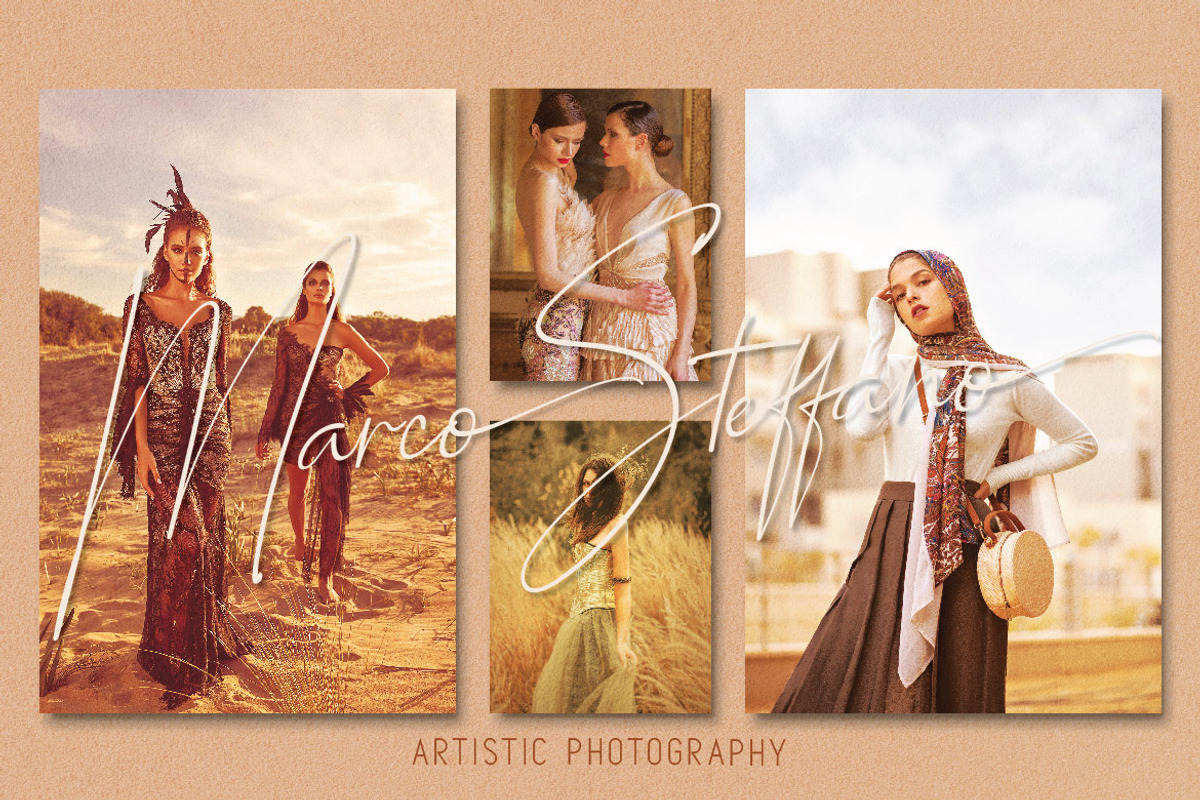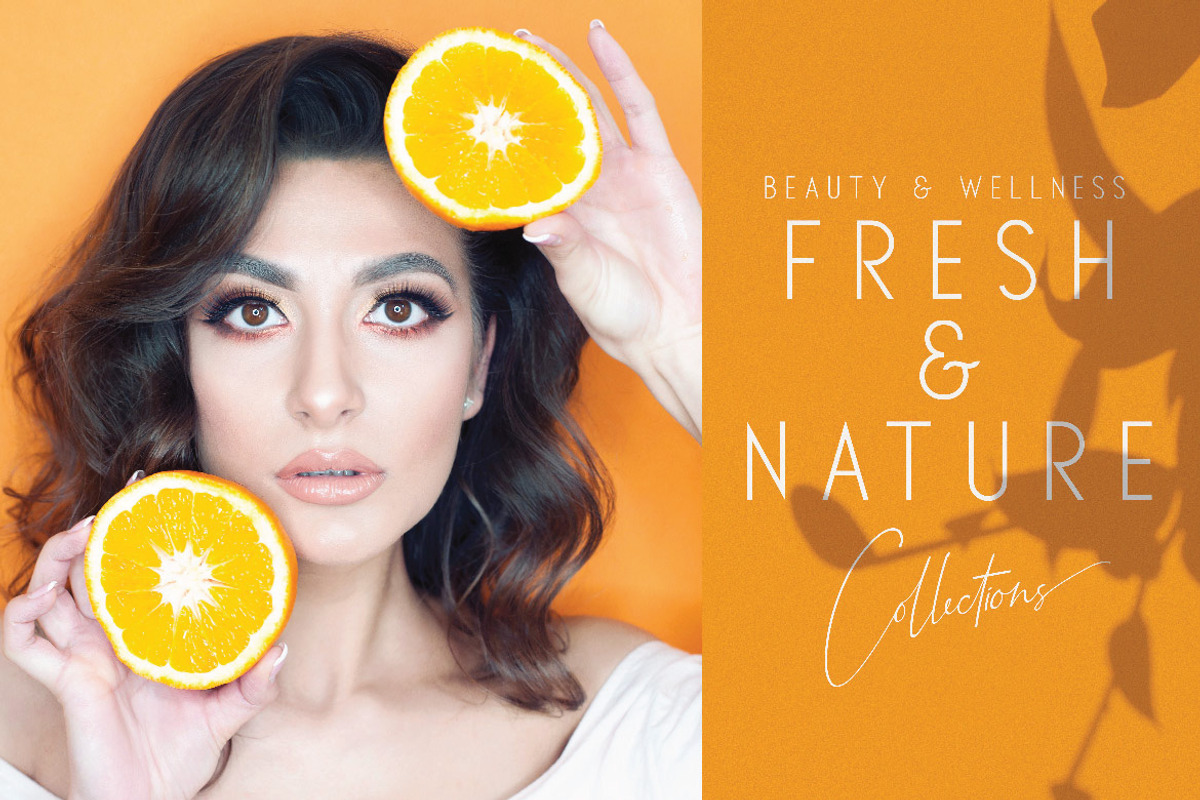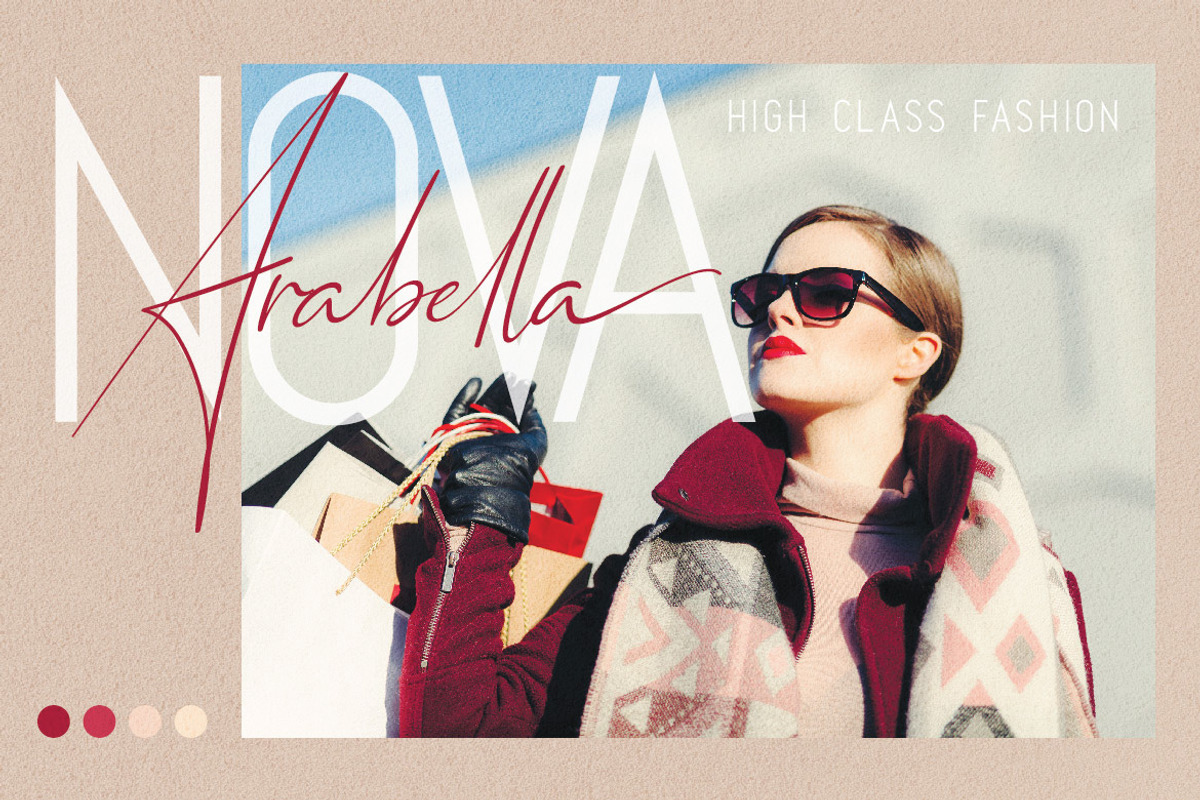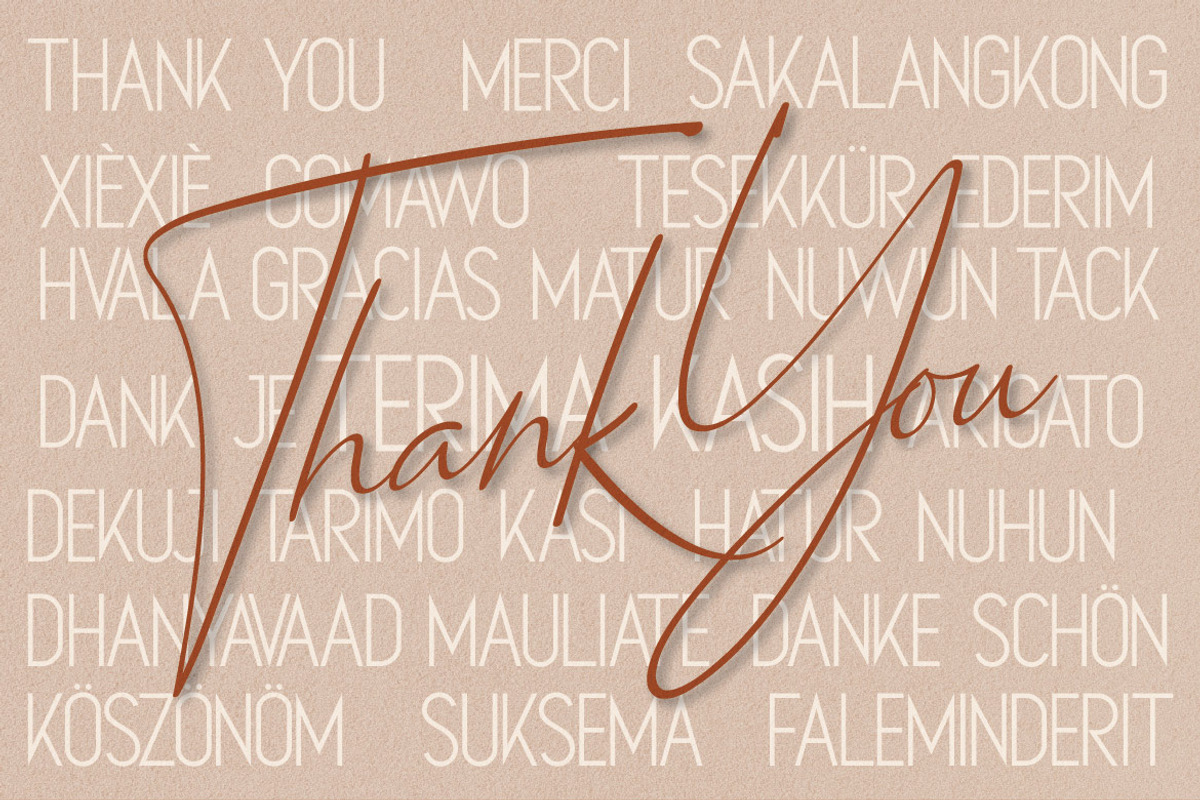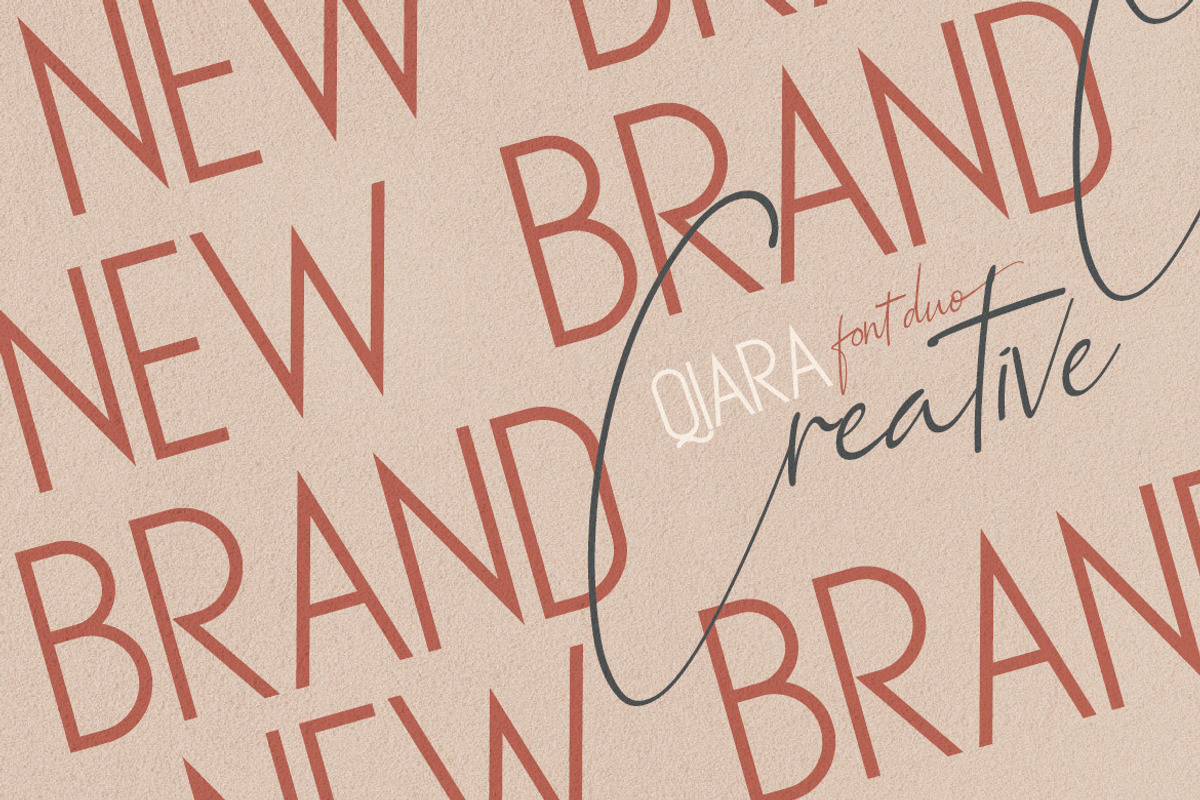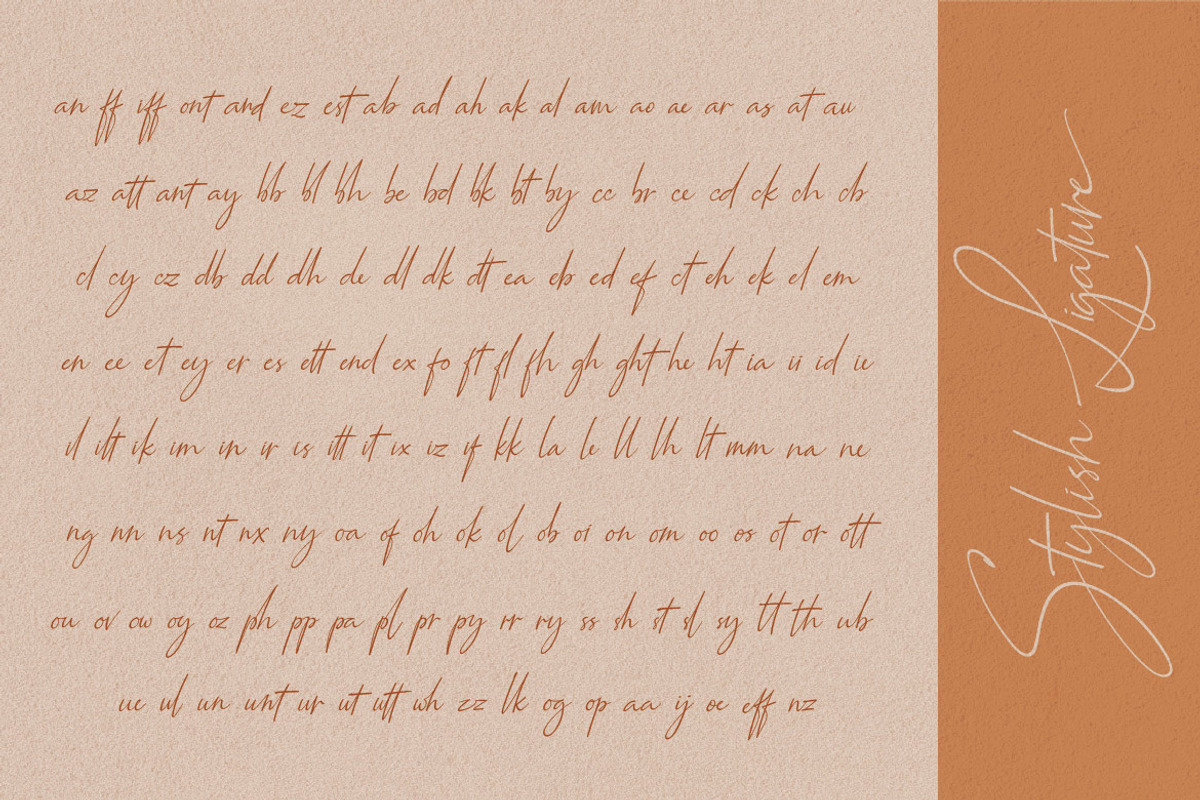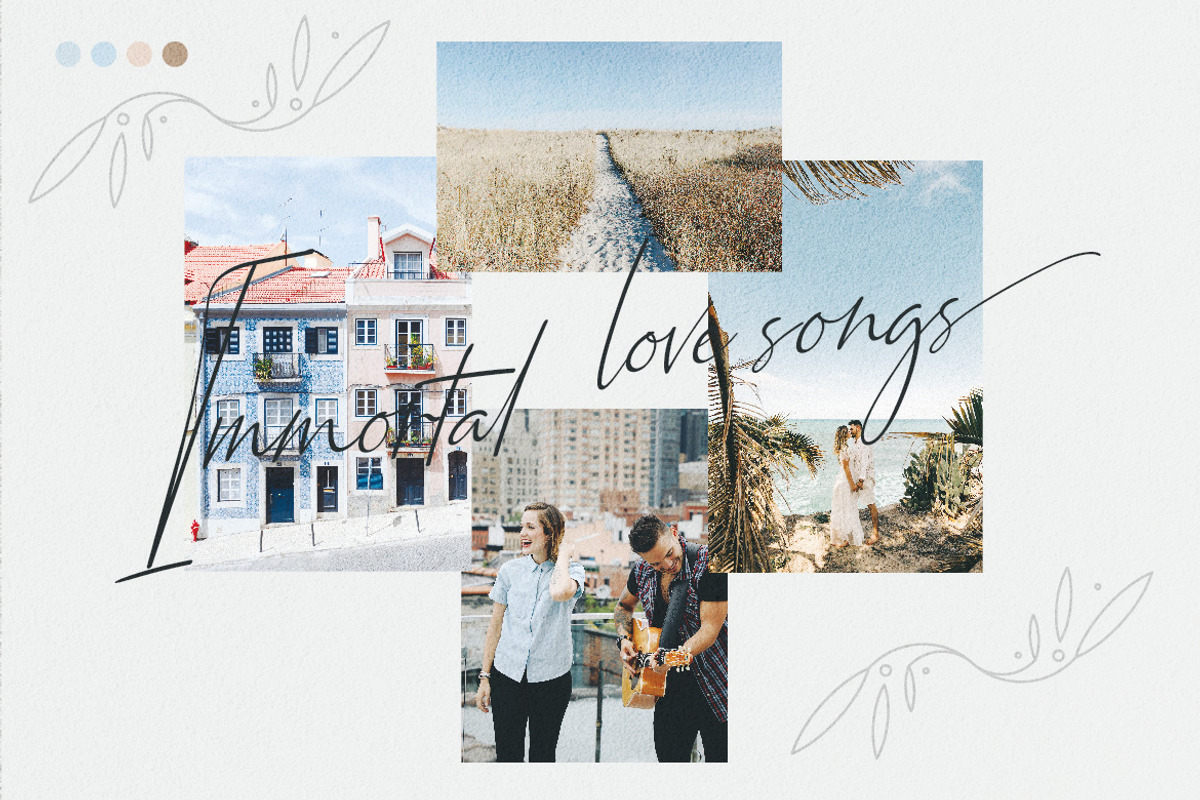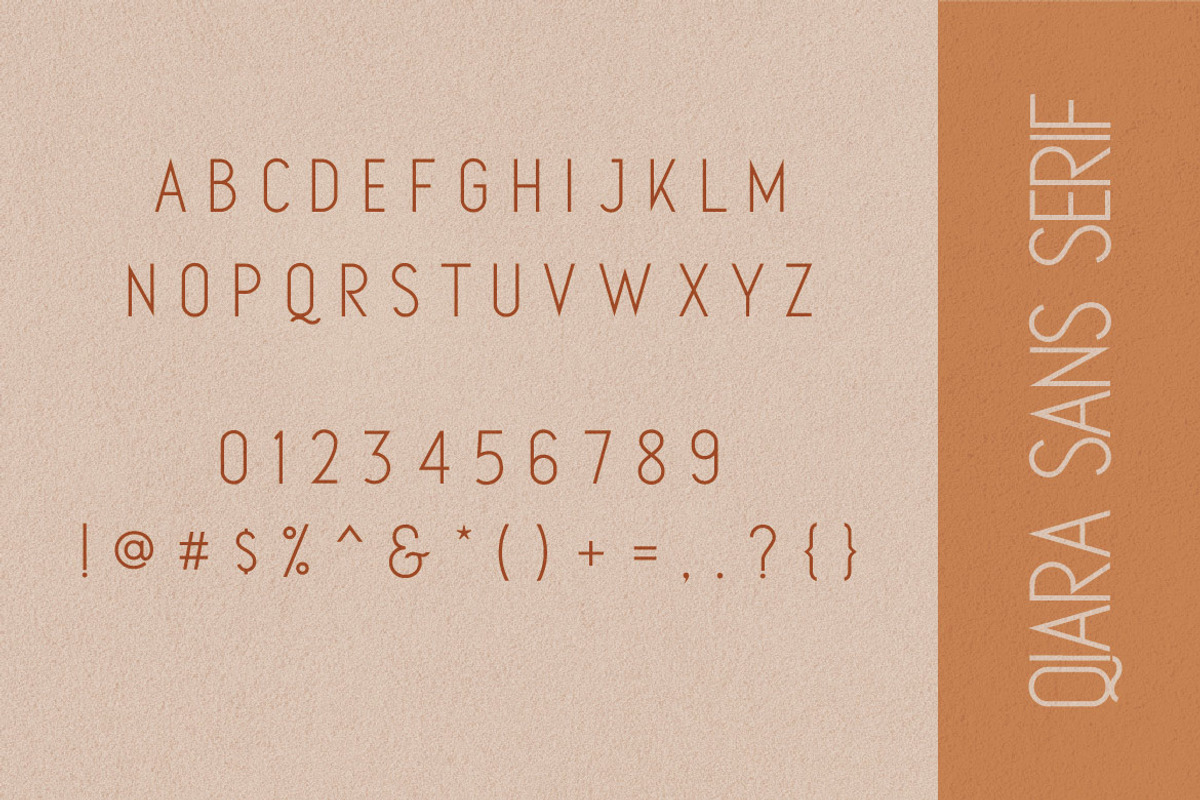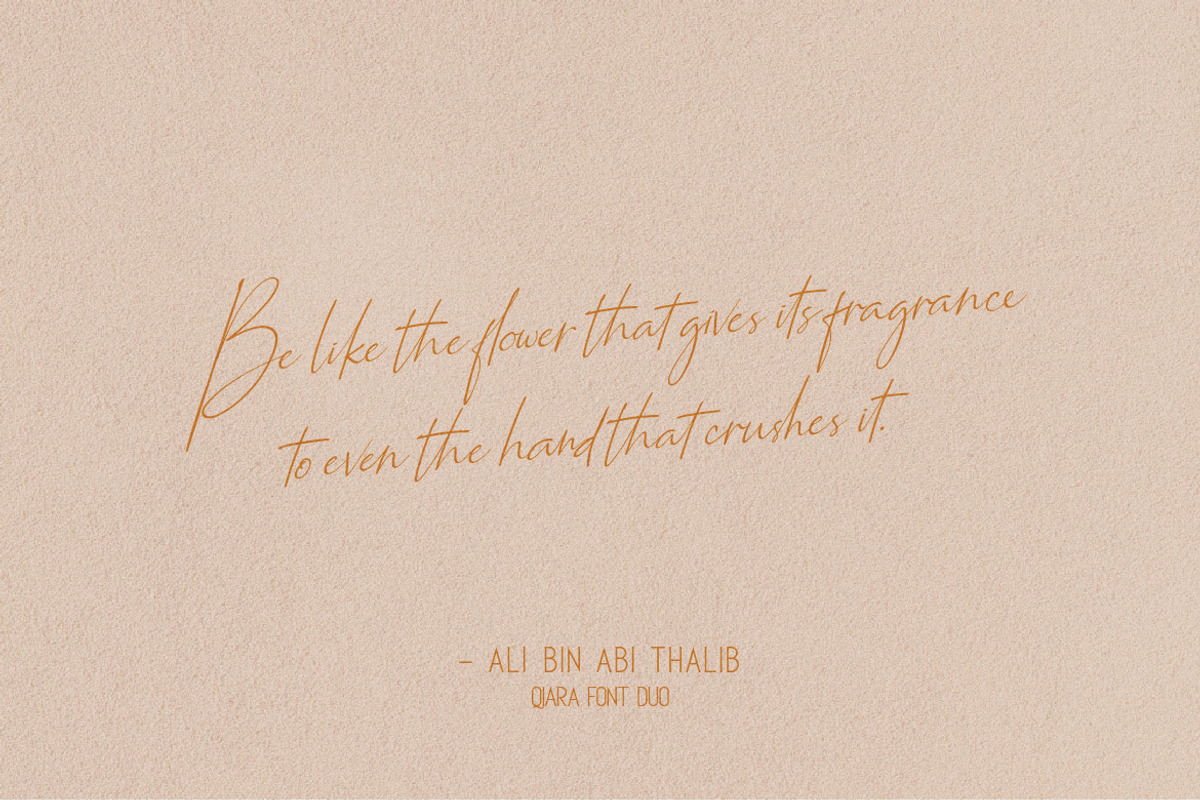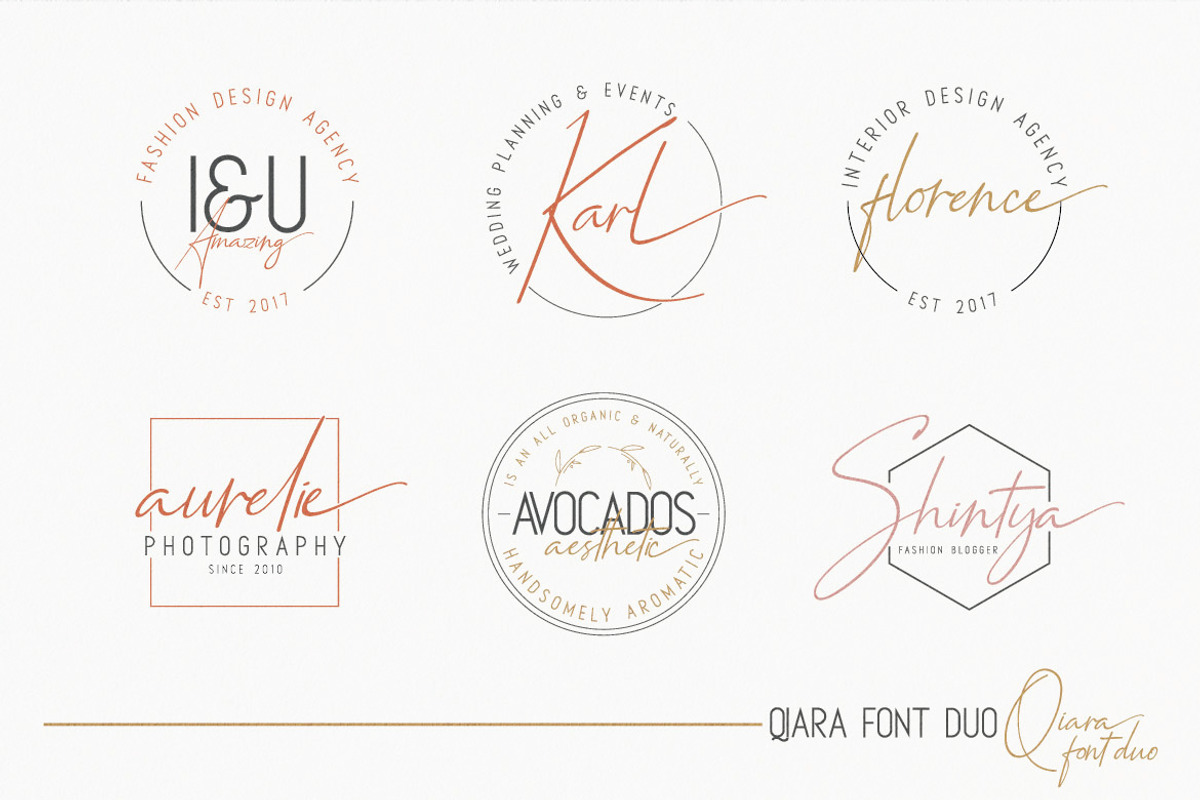
Qiara Font Duo
Qiara Font Duo consists of modern san serif and modern calligraphy, also very suitable for logo branding, wedding, invitation, typhography, quotes, magazine, or anything do you want.Take a look at the preview above to get creative inspiration and see what you can make.